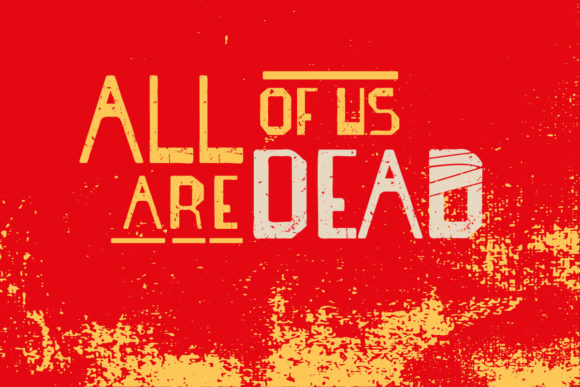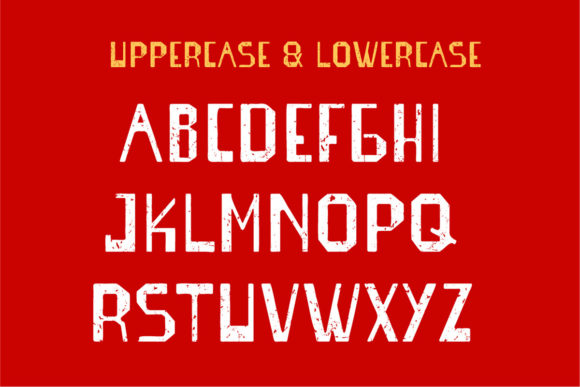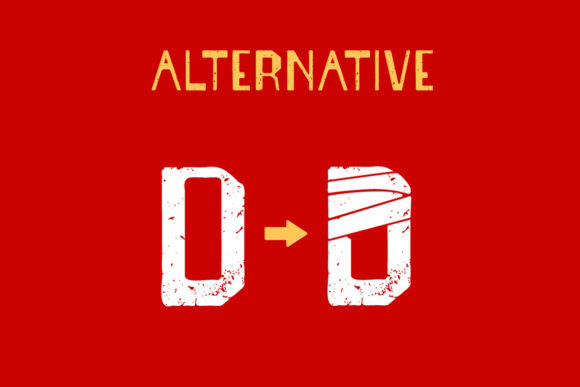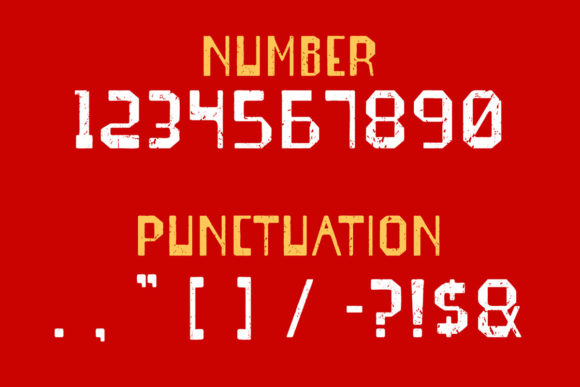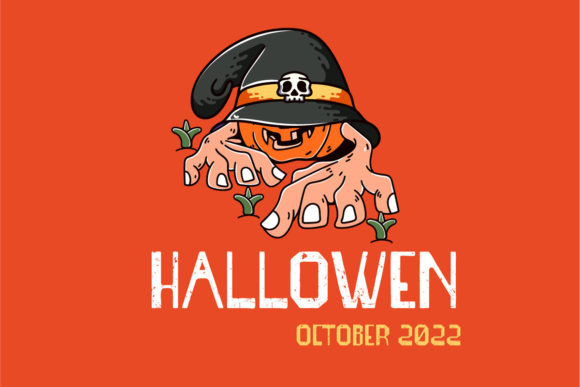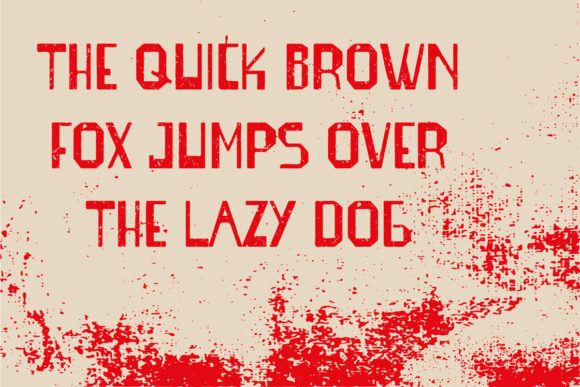
Unleash the Horror: Introducing Dead Zombies Font
Are you tired of using the same old fonts for your designs? Do you want to add a touch of horror and edginess to your projects? Look no further than Dead Zombies Font, a bold, rough textured display font that’s perfect for a wide range of applications. In this article, we’ll take a closer look at what makes Dead Zombies Font so unique and how you can use it to elevate your designs.
The Perfect Font for Horror and Edgy Designs
Dead Zombies Font is a bold, rough textured display font that’s designed to make a statement. Its distressed texture and bold lettering make it perfect for creating eye-catching designs that are sure to grab attention. Whether you’re working on a logo, t-shirt printing, sporting design, or any other branding project, Dead Zombies Font is the perfect choice.
One of the key features of Dead Zombies Font is its versatility. It can be used in a wide range of contexts, from horror-themed designs to sports and gaming. The font’s rough texture and bold lettering make it perfect for creating designs that need to stand out from the crowd.
Key Features of Dead Zombies Font
- Bold and Rough Textured: Dead Zombies Font features a bold, rough textured design that’s perfect for creating eye-catching designs.
- Distressed Texture: The font’s distressed texture gives it a worn, vintage look that’s perfect for creating horror-themed designs.
- Versatile: Dead Zombies Font can be used in a wide range of contexts, from logos and t-shirt printing to sporting designs and more.
Here are a few ideas for using Dead Zombies Font:
- Logos: Use Dead Zombies Font to create a bold, eye-catching logo for your business or brand.
- T-Shirt Printing: Create custom t-shirts with Dead Zombies Font for a unique and eye-catching design.
- Sporting Designs: Use Dead Zombies Font to create bold, edgy designs for sports teams or events.
- Horror-Themed Designs: Create horror-themed designs, such as posters or flyers, with Dead Zombies Font.
Tips and Tricks for Getting the Most Out of Dead Zombies Font
Here are a few tips and tricks for getting the most out of Dead Zombies Font:
- Experiment with Different Colors: Try using Dead Zombies Font with different colors to create unique and eye-catching designs.
- Combine with Other Fonts: Combine Dead Zombies Font with other fonts to create interesting and dynamic designs.
- Use in Combination with Images: Use Dead Zombies Font in combination with images to create bold, eye-catching designs.
Dead Zombies Font is a bold, rough textured display font that’s perfect for a wide range of applications. Its distressed texture and bold lettering make it perfect for creating eye-catching designs that are sure to grab attention. Whether you’re a designer or crafter, Dead Zombies Font is a great addition to your font library. So why wait? Download Dead Zombies Font today and start creating unique and eye-catching designs.
In conclusion, Dead Zombies Font is a versatile and powerful font that’s perfect for designers and crafters who want to add a touch of horror and edginess to their designs. With its bold and rough textured design, distressed texture, and versatility, Dead Zombies Font is sure to become a favorite in your font library.